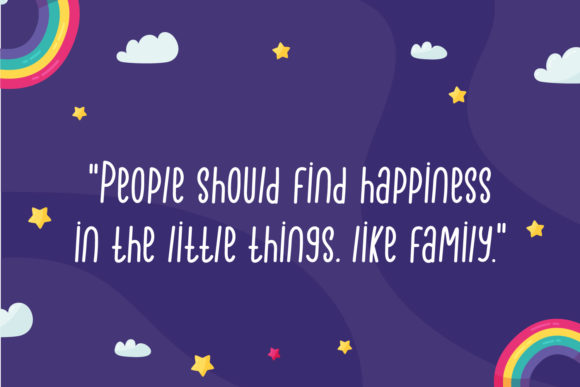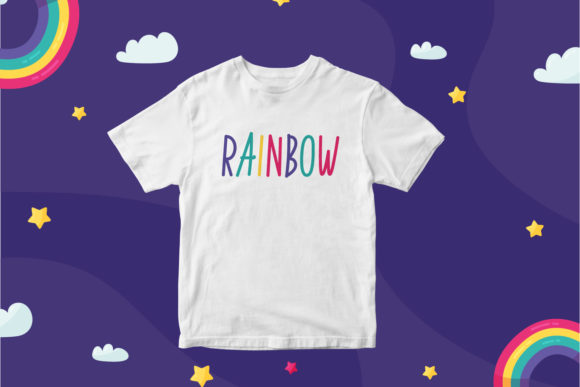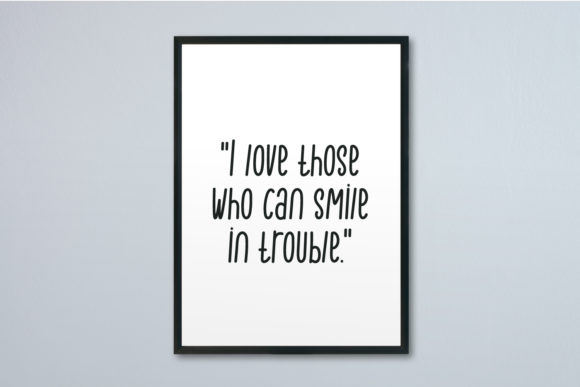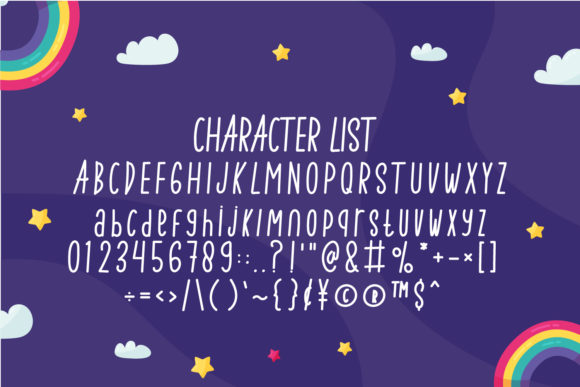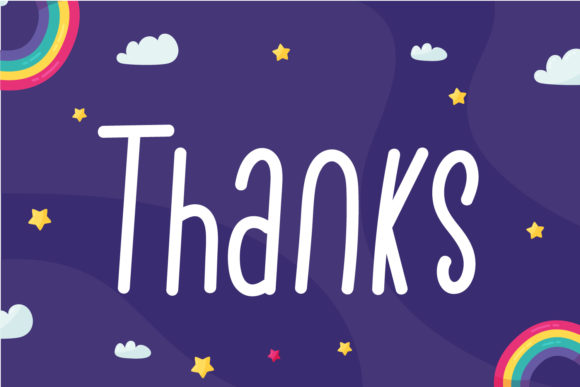
Discover the Charm of Adriana Font: Elevate Your Crafting Projects with a Personalized Touch
Are you a crafter or designer looking for a unique and personalized touch for your projects? Look no further than Adriana Font, a tall and adorable handwritten font that’s perfect for adding a special flair to your creations. In this article, we’ll dive into the world of Adriana Font, exploring its features, benefits, and uses, as well as provide tips and inspiration for incorporating it into your crafting projects.
What is Adriana Font?
Adriana Font is a beautiful, handwritten typeface that’s designed to bring a touch of personality and whimsy to your projects. With its tall and slender letters, Adriana Font is perfect for creating eye-catching titles, headings, and text elements that demand attention. Its cute and playful vibe makes it an ideal choice for crafters and designers working on projects that require a more personal and human touch.
Key Features of Adriana Font
- Tall and slender letters: Adriana Font’s unique lettering style makes it perfect for creating striking headlines and titles that stand out.
- Cute and playful vibe: This font’s adorable and whimsical feel makes it perfect for projects that require a personal touch, such as handmade cards, invitations, and DIY crafts.
- Handwritten style: Adriana Font’s handwritten style gives it a unique, one-of-a-kind feel that’s perfect for adding a touch of personality to your projects.
- Easy to read: Despite its decorative nature, Adriana Font is surprisingly easy to read, making it perfect for use in both digital and print projects.
Benefits of Using Adriana Font
So why choose Adriana Font for your crafting projects? Here are just a few benefits of using this beautiful font:
- Adds a personal touch: Adriana Font’s unique, handwritten style gives your projects a personal and human touch that’s hard to replicate with more traditional fonts.
- Creates a cohesive look: Use Adriana Font throughout your project to create a cohesive and visually appealing design that’s sure to impress.
- Perfect for DIY projects: Adriana Font is ideal for DIY crafters who want to add a professional touch to their handmade projects, such as cards, invitations, and gift tags.
- Versatile: Adriana Font can be used in a wide range of projects, from digital designs to print materials, making it a versatile addition to your font collection.
Using Adriana Font in Your Crafting Projects
So how can you use Adriana Font in your crafting projects? Here are a few ideas to get you started:
- Handmade cards: Use Adriana Font to create beautiful, one-of-a-kind handmade cards for special occasions.
- DIY invitations: Add a touch of elegance and sophistication to your DIY invitations with Adriana Font.
- Gift tags: Use Adriana Font to create adorable gift tags that add a personal touch to your gifts.
- Scrapbooking: Adriana Font is perfect for scrapbooking projects, where its unique style can add a touch of personality and whimsy to your layouts.
Tips for Working with Adriana Font
Here are a few tips for getting the most out of Adriana Font:
- Experiment with sizes: Adriana Font looks great in a range of sizes, from large headlines to smaller body text.
- Pair with complementary fonts: Try pairing Adriana Font with complementary fonts to create a unique and visually appealing design.
- Use in combination with images: Adriana Font looks great in combination with images, so don’t be afraid to experiment with mixing text and visuals.
In conclusion, Adriana Font is a beautiful, handwritten typeface that’s perfect for crafters and designers looking to add a personal touch to their projects. With its unique style, versatility, and ease of use, Adriana Font is sure to become a favorite in your font collection. So why not give it a try and see how it can elevate your crafting projects to the next level?